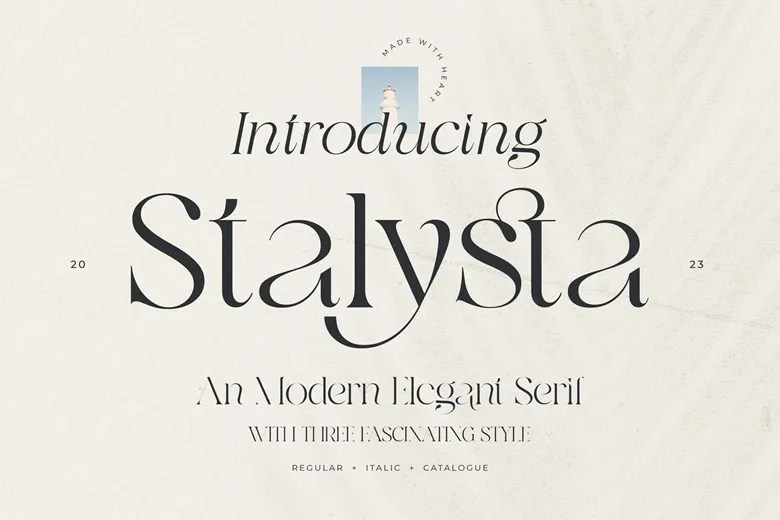
Stalysta Font
Stalysta is an elegant editorial serif font that combines sophistication with versatility, making it an excellent choice for various design applications. Its uppercase letters exude a stunning presence, while the lowercase options are equally impressive, providing a harmonious balance in typography. This font is particularly well-suited for branding, poster design, and editorial projects, ensuring that your text stands out with a refined flair.
The clean lines and classic serifs of Stalysta enhance its readability, making it ideal for headlines and body text alike. Whether you’re designing a magazine cover, a promotional poster, or crafting a brand identity, this font adapts seamlessly to your needs, adding a touch of elegance to any project.
With Stalysta, you can effortlessly convey a sense of professionalism and style. Its unique character allows it to shine in both print and digital mediums, ensuring your designs maintain their impact across various platforms. The font’s versatility makes it a valuable addition to any designer’s toolkit.